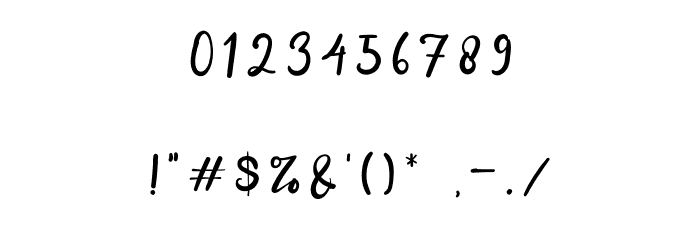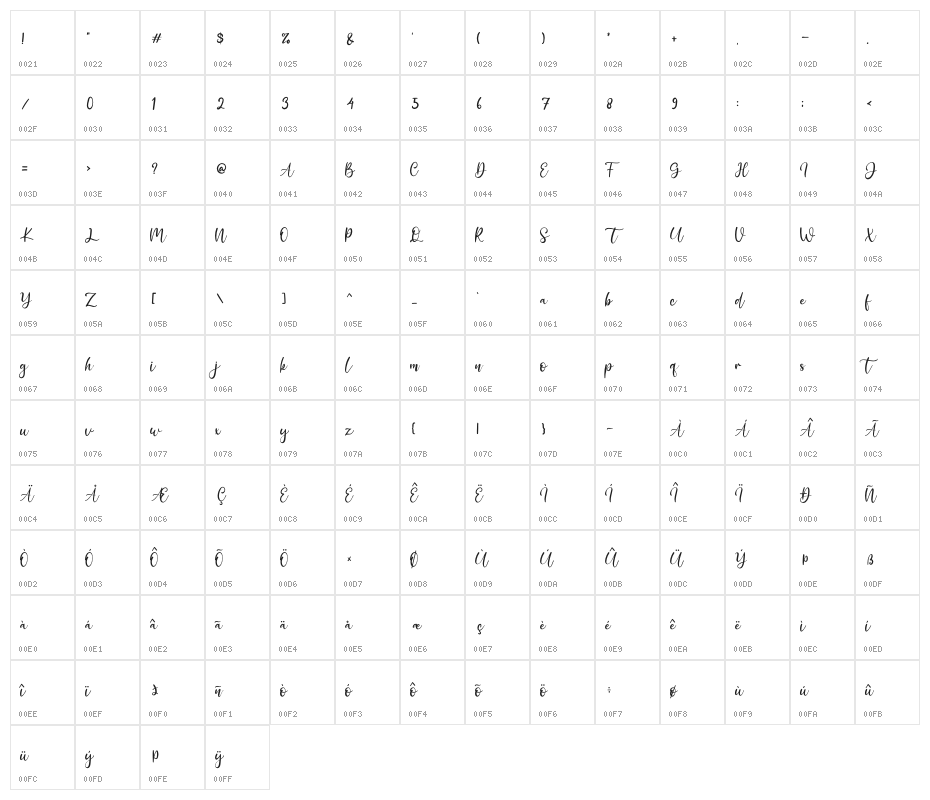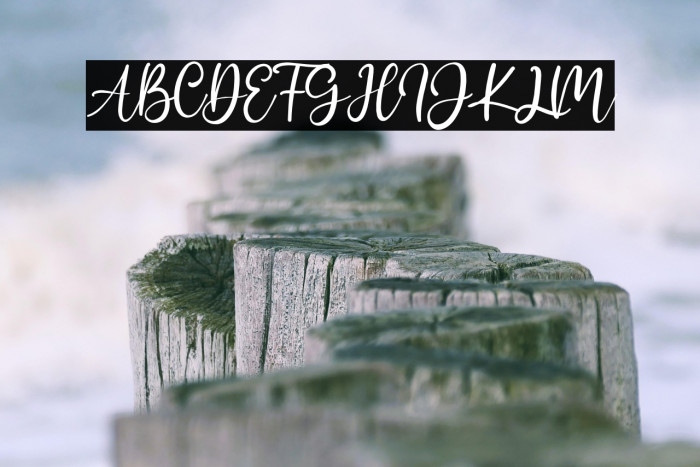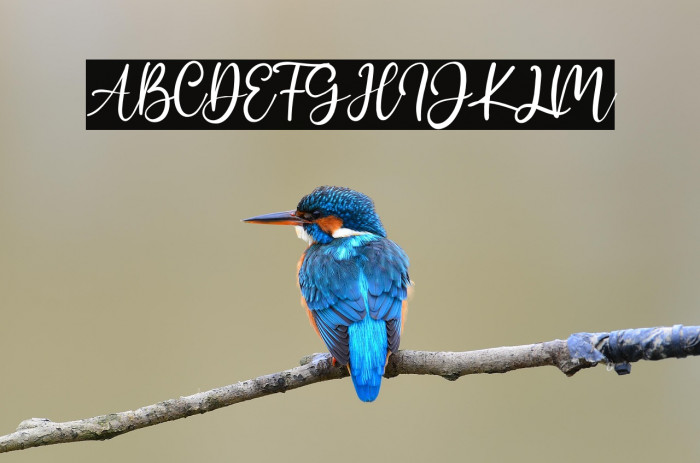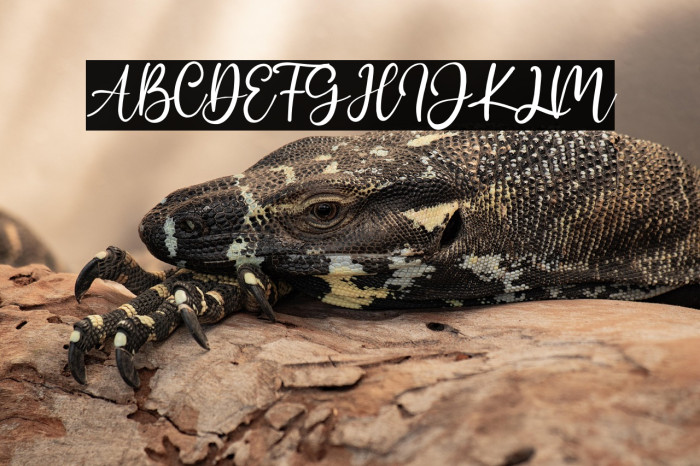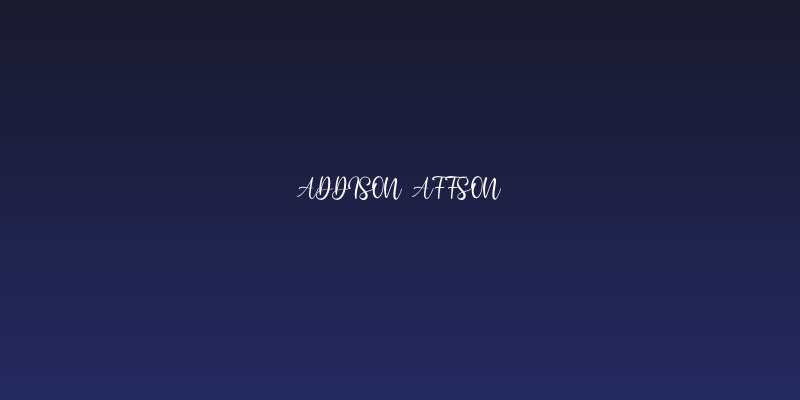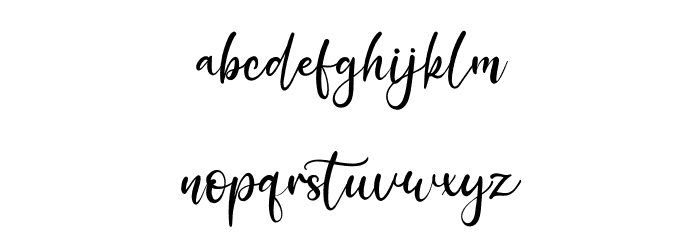
Addison Affson Font
Addison Affson Description
This elegant script font features flowing, cursive letters with a modern flair. The uppercase characters are beautifully looped and connected, giving a sense of fluidity and grace. The lowercase letters maintain a consistent style, with smooth curves and a slightly playful touch. Numbers and special characters are designed to complement the overall aesthetic, ensuring a cohesive look across all text. This font is perfect for adding a personal, handwritten feel to any project, while maintaining readability and style.